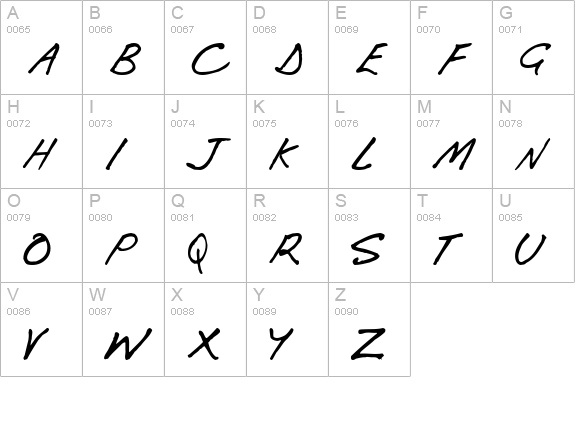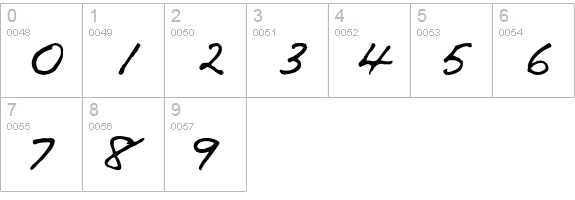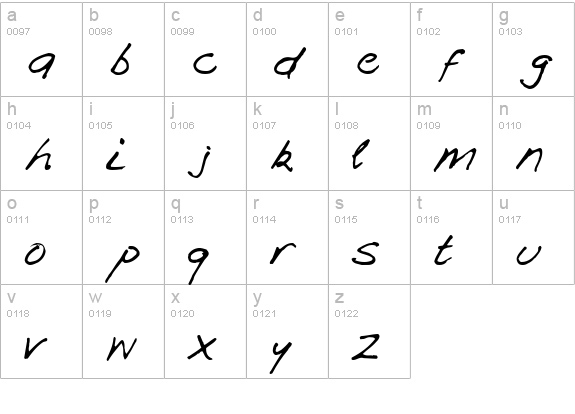
Handi Font Details
Handi font is a beautifully designed typeface that combines elegance with a touch of playfulness. Its unique letterforms and stylish curves make it perfect for adding a touch of sophistication to any project. Whether you are designing a logo, creating a poster, or crafting a wedding invitation, Handi font will effortlessly elevate your design. One of the best things about Handi font is that it is available for free. Yes, you read that right - this stunning font can be downloaded free of charge. Thanks to the generous folks at FontsMarket.com, Handi font is freely available for all graphic designers, artists, and typography enthusiasts. With Handi font, you will have access to a wide range of characters, including uppercase and lowercase letters, numerals, punctuation marks, and special symbols. This versatility ensures that you can create visually striking and engaging designs that truly stand out. Handi font is incredibly easy to use, whether you are a seasoned designer or just starting out. Its clean and legible letterforms make it highly readable, ensuring that your message gets across effectively. Additionally, the font is compatible with various design software, making it a convenient choice for all your creative needs. So why wait? Head over to FontsMarket.com and download Handi font today. With its stunning design and the fact that it is available for free, Handi font is a must-have for any designer looking to add a touch of elegance and charm to their projects. Don't miss out on this incredible opportunity to enhance your creative endeavors with Handi font.